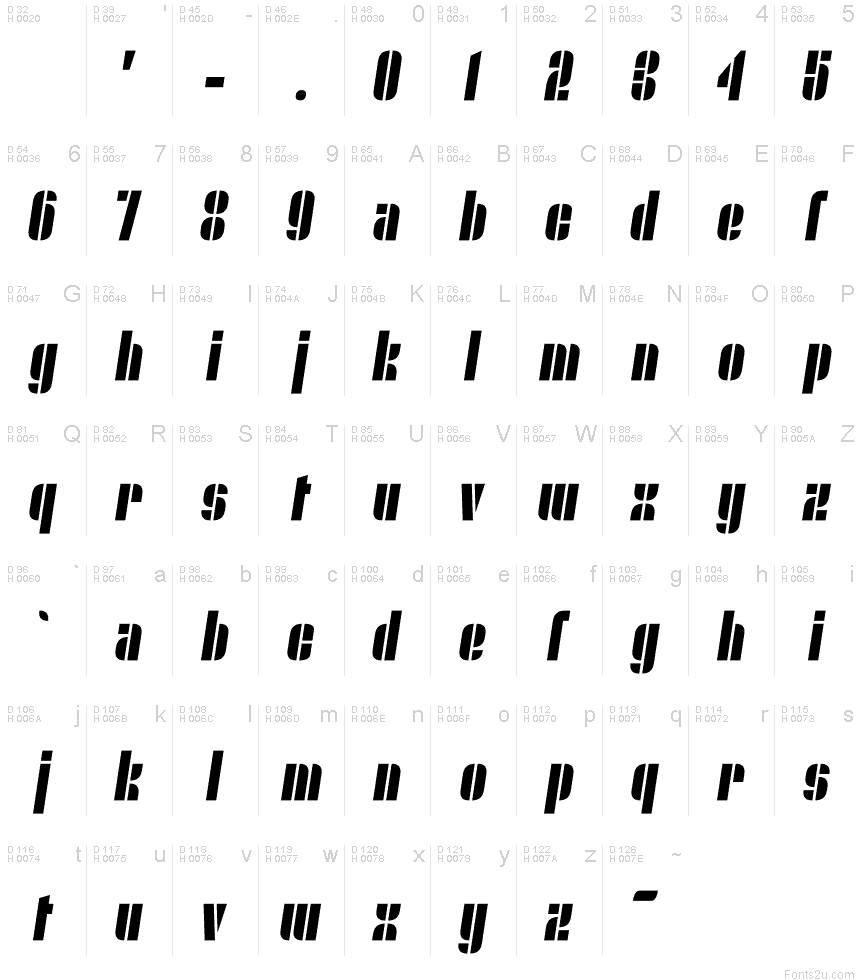
Nyamomobile
Nyamomobile font by Vic Fieger is a free retro display font with tall slanted forms and smooth, rounded edges. The letters are built from simple, elongated strokes that feel compact and slightly compressed, giving the name a sleek but unmistakably vintage graphic rhythm.
Nyamomobile works well for poster titles, music covers, game branding, logo marks, and short packaging text where that elongated retro shape can carry the layout. This free font also fits signage, promotional banners, and editorial accents that need a distinctive wordmark without extra ornament.